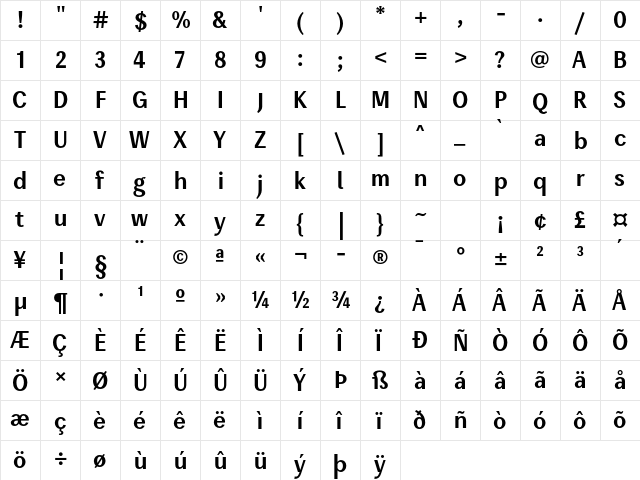
Enceladus Bold
| Foundry | Igor Kosinsky |
| Designer | Igor Kosinsky |
Design Context for Enceladus Typeface
Enceladus offers clean, dependable letterforms without strong stylistic allegiance, making it a practical choice for designers who need flexibility. The heavy weight commands attention and anchors typographic hierarchies.